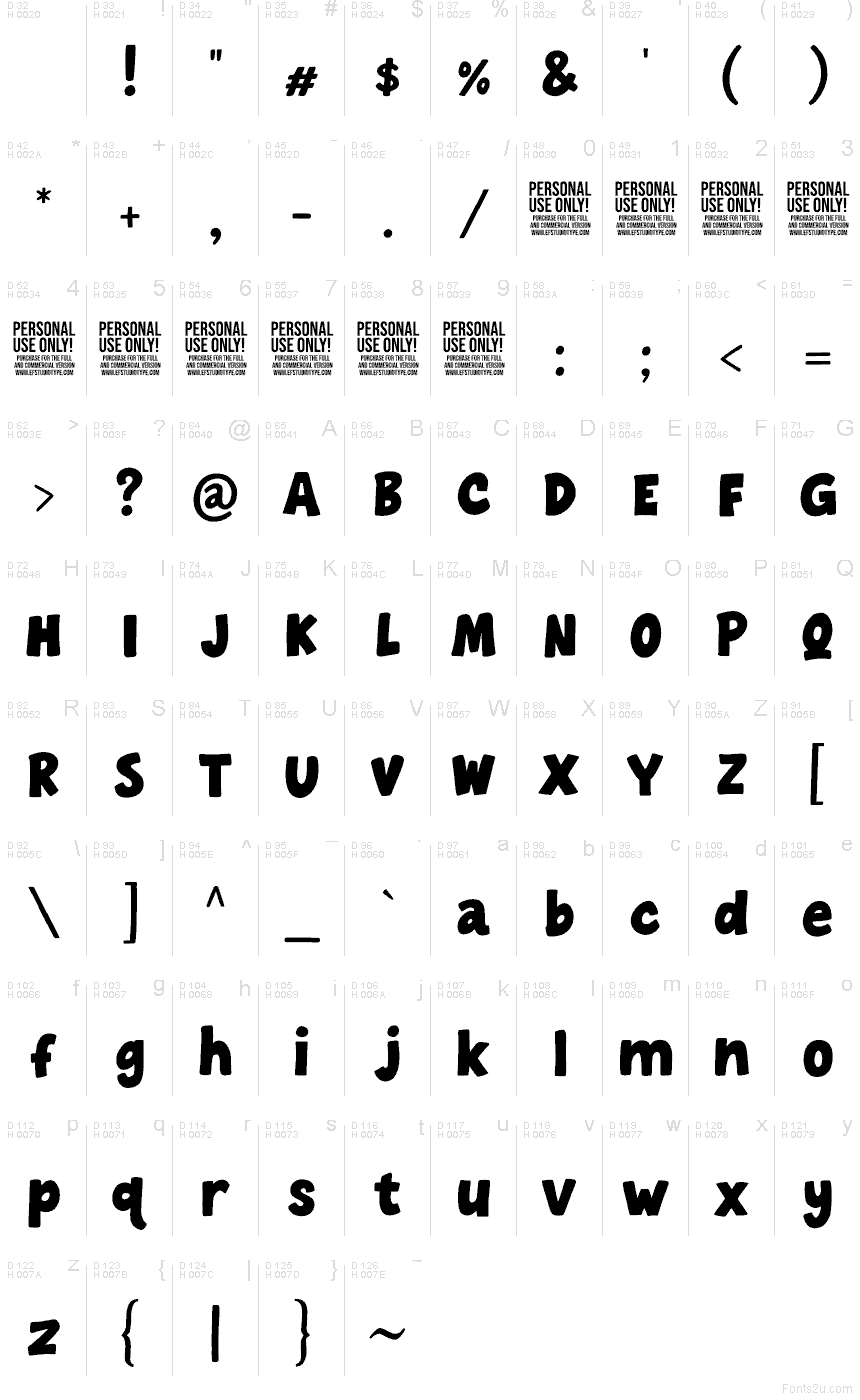
Everink Loose - Personal Use
Everink Loose font by Ef Studio is a free comic display typeface with big, inky letters that feel like they’ve been brushed onto a poster. The shapes are chunky, rounded, and slightly uneven, giving every word a bouncy, hand-drawn energy that jumps off the page. It reads as friendly and loud at the same time, great when you want to shout without sounding harsh.
Using Everink Loose, this free font shines on kids’ book covers, comic panels, snack or toy packaging, playful social posts, YouTube thumbnails, party invitations, and sticker designs. The generous curves and solid weight hold up beautifully at large sizes, even on busy backgrounds. For a simple pairing, use Everink Loose for headlines and combine it with a clean, neutral sans serif for small supporting text.